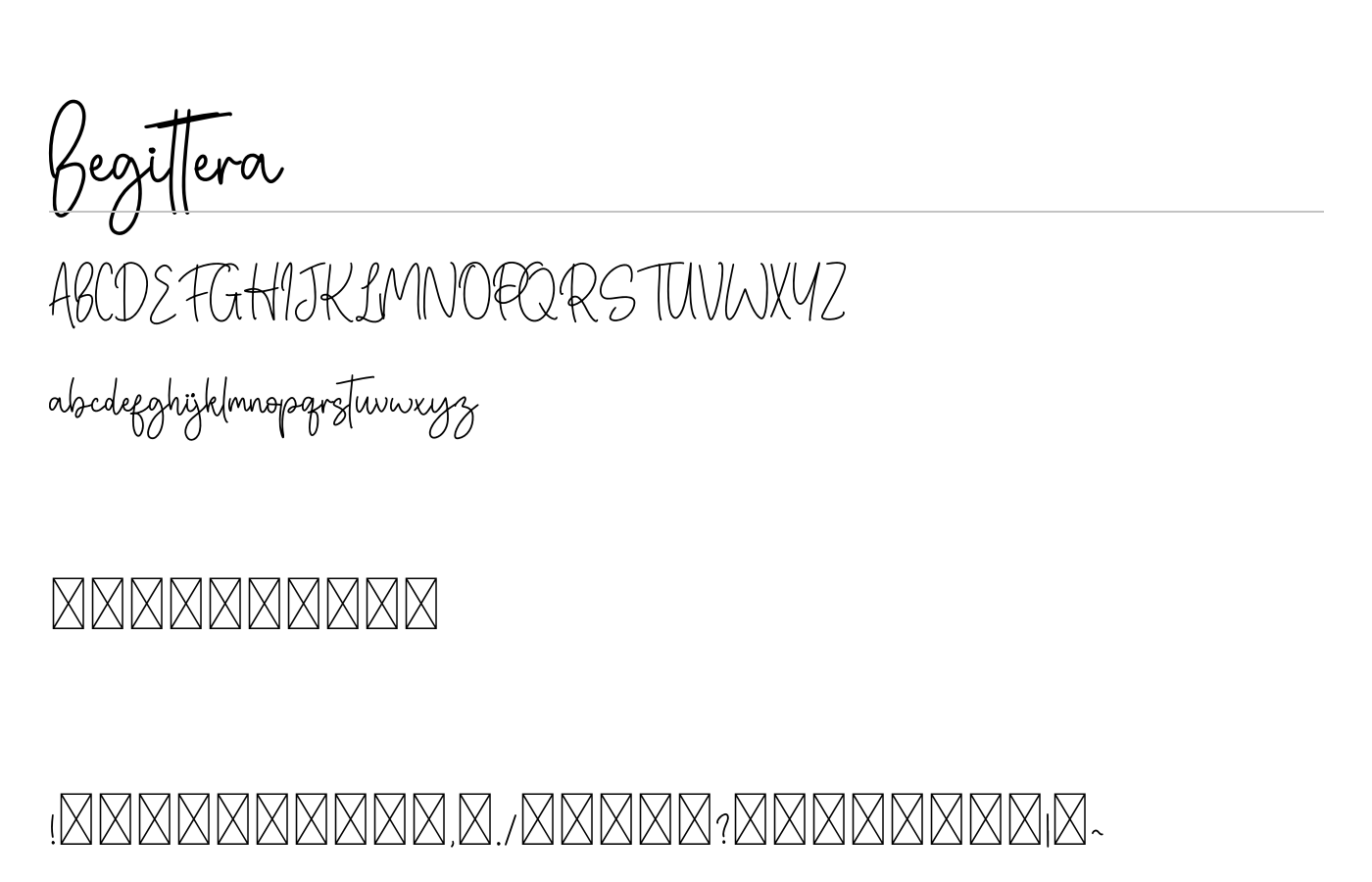
Begittera is a delicate, handwritten script font characterized by its tall, slender letterforms and playful, casual style. With its light weight and airy spacing, it conveys a friendly and personal feel, making it perfect for invitations, branding, and creative projects that want to evoke warmth and individuality. This font shines in designs that benefit from an elegant yet approachable handwritten touch.
Begittera Font
About Begittera Font
| Font family | Begittera Font |
| Designer | Ana Natalia |